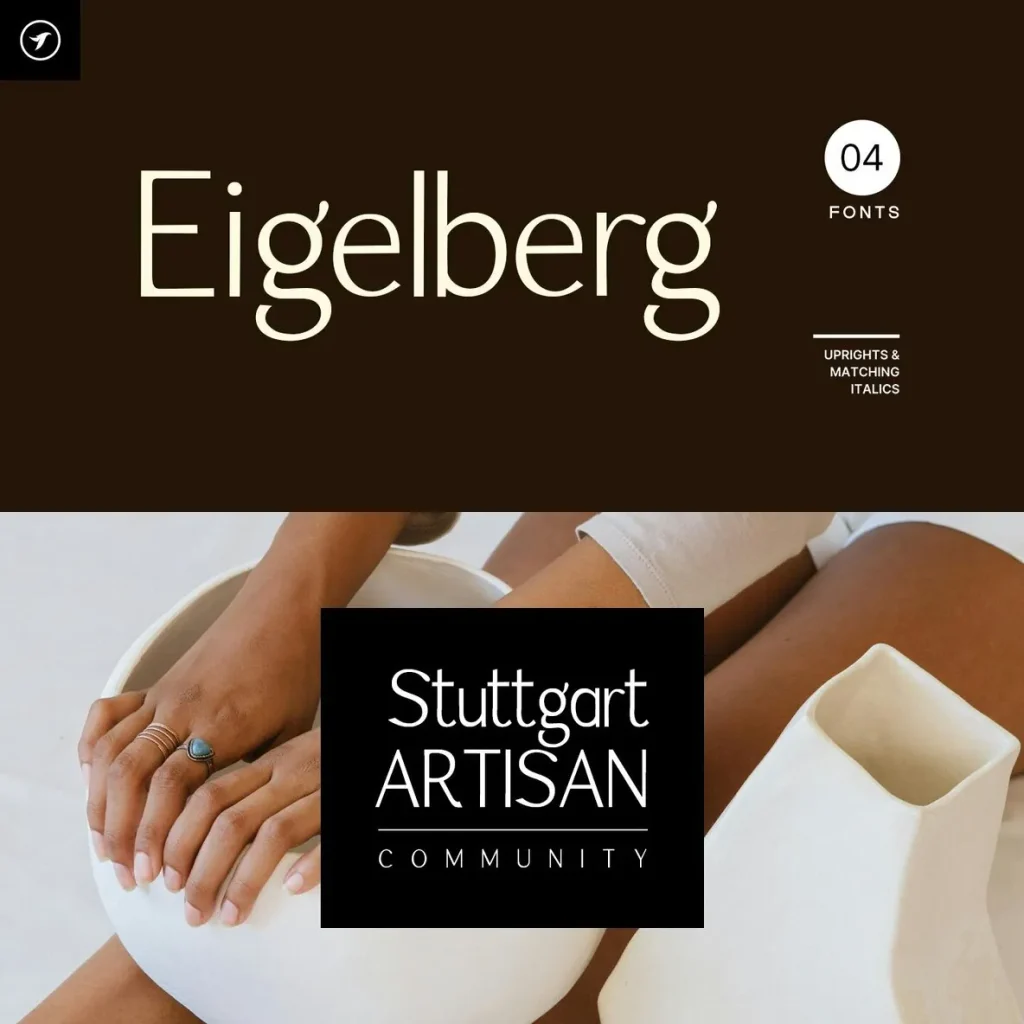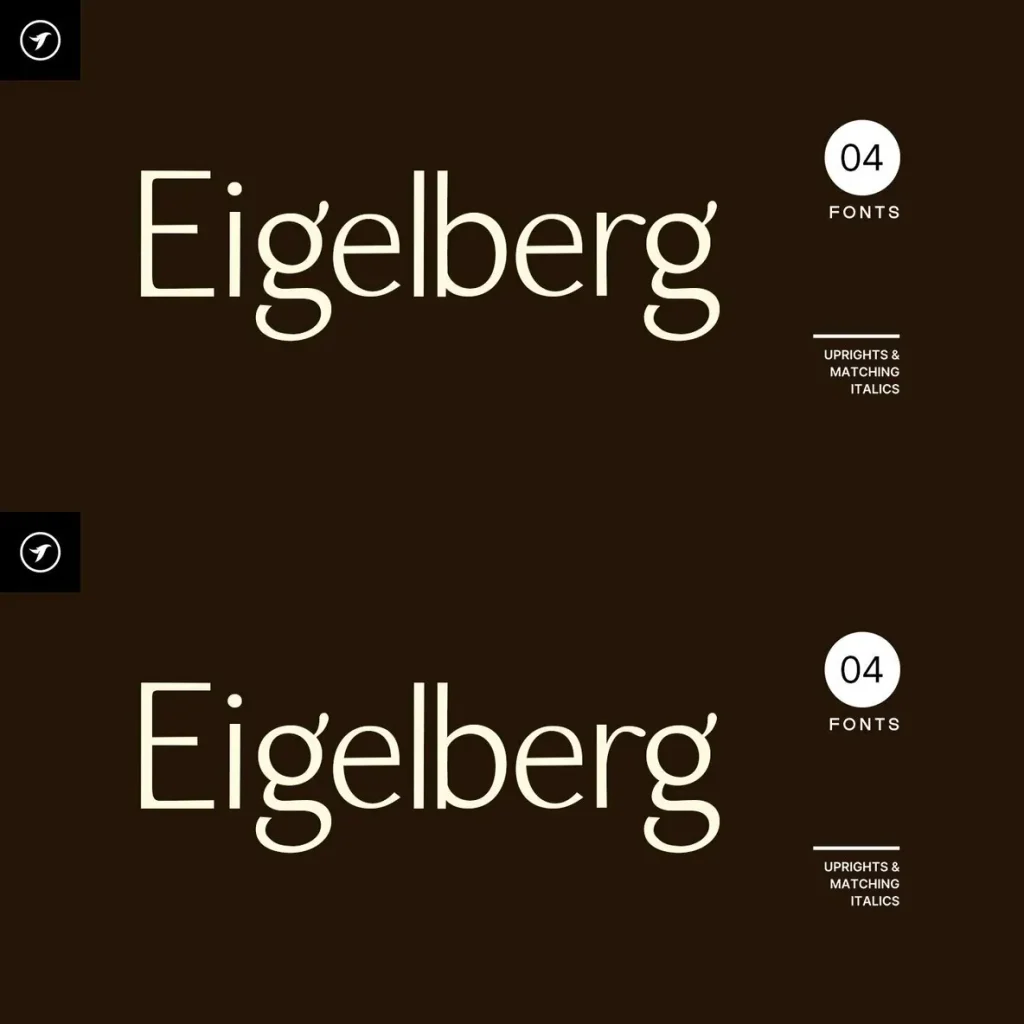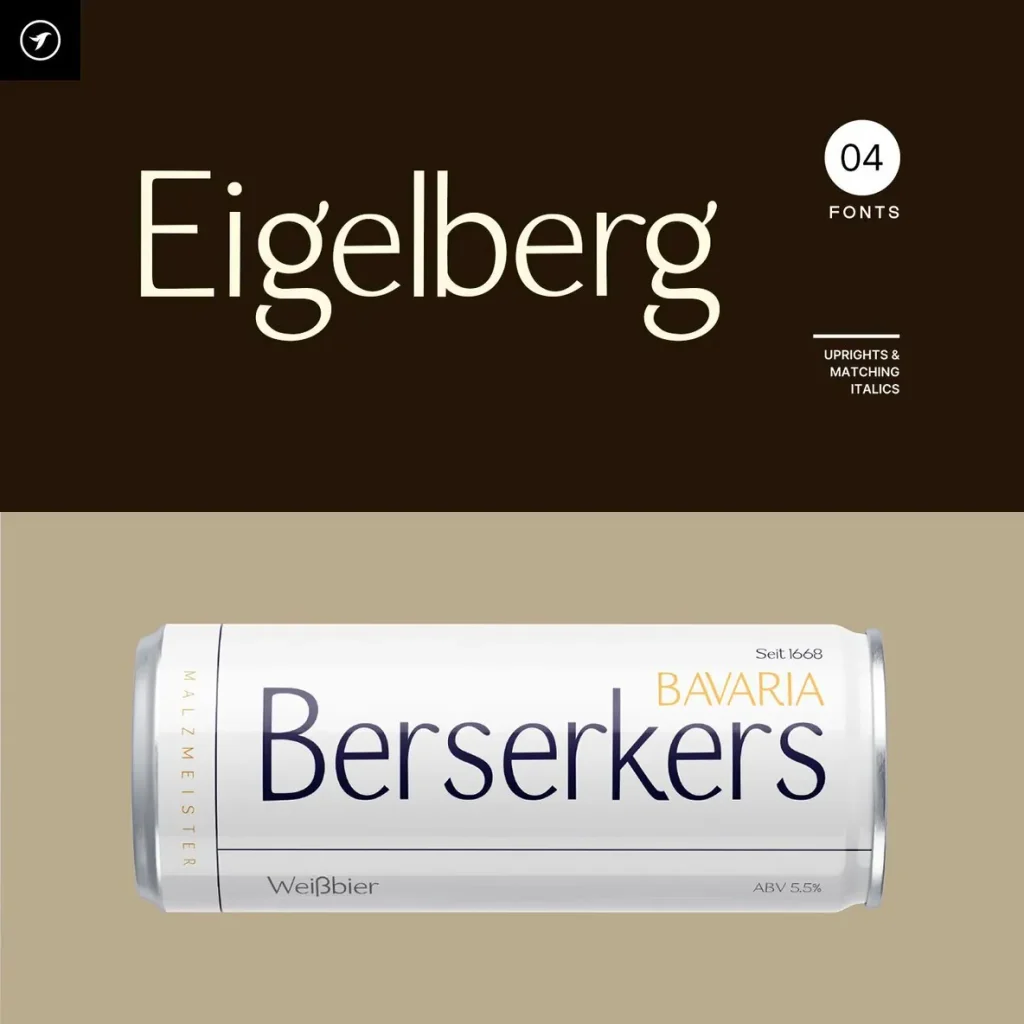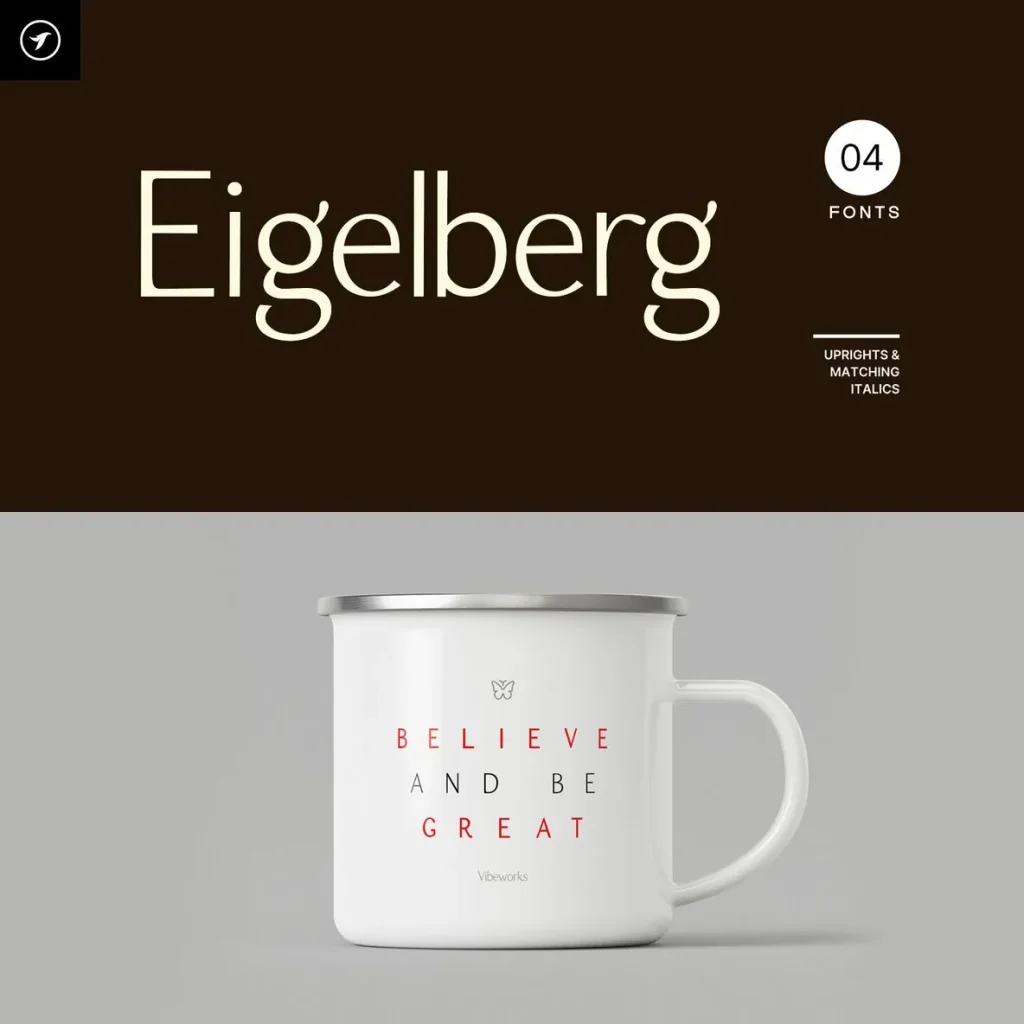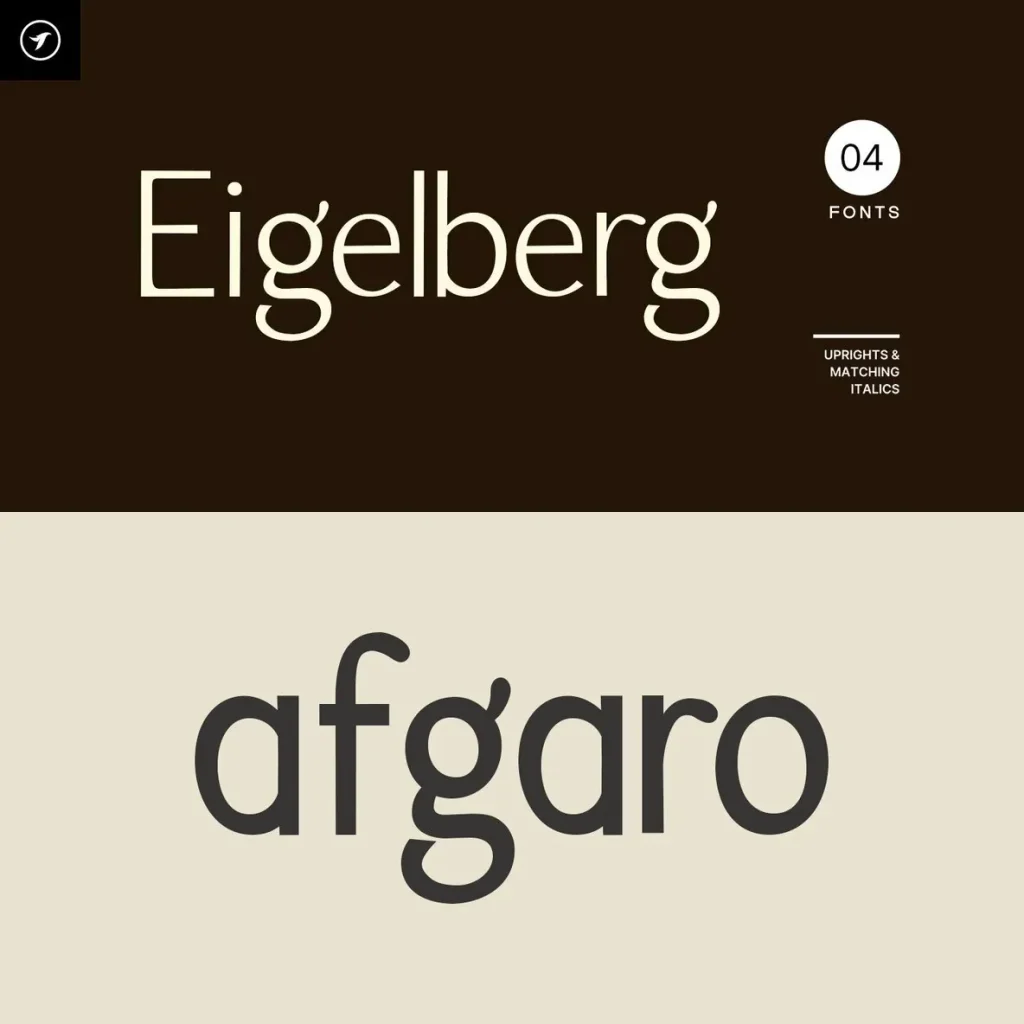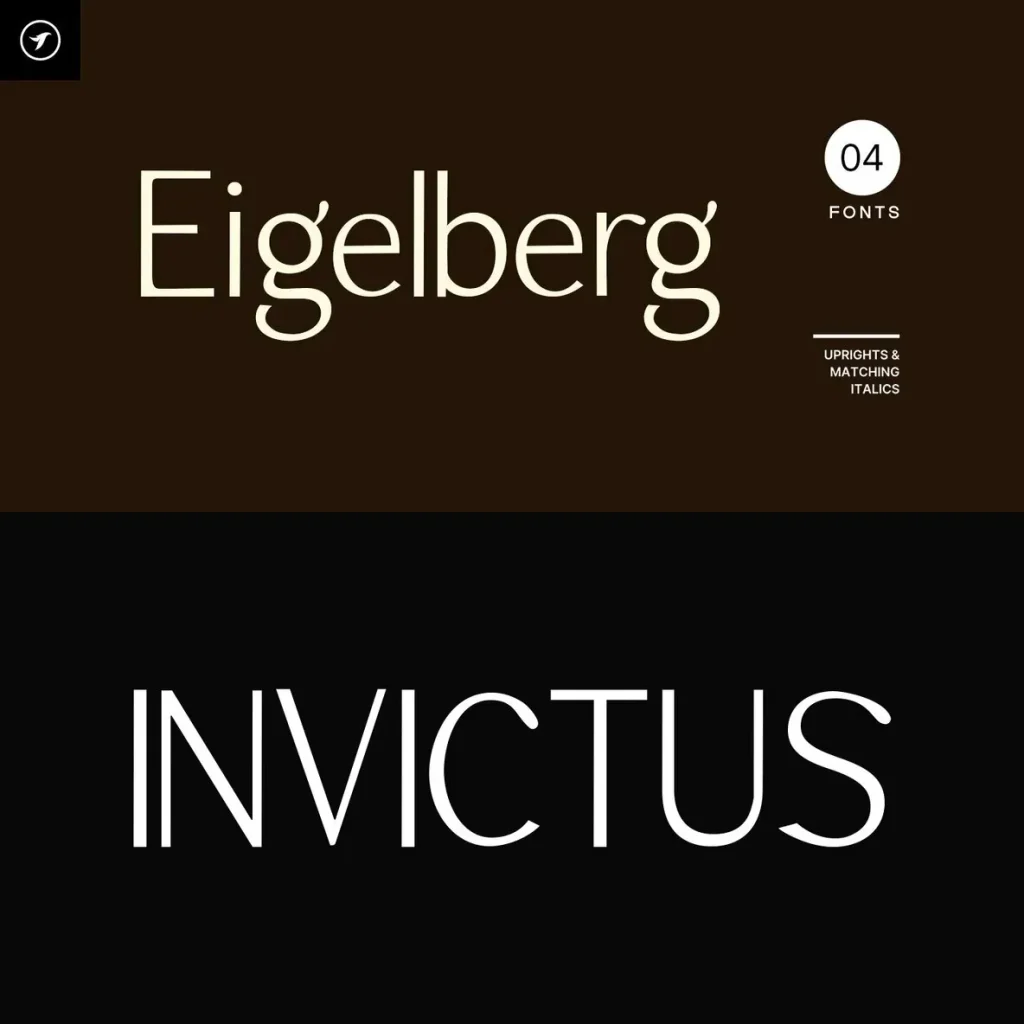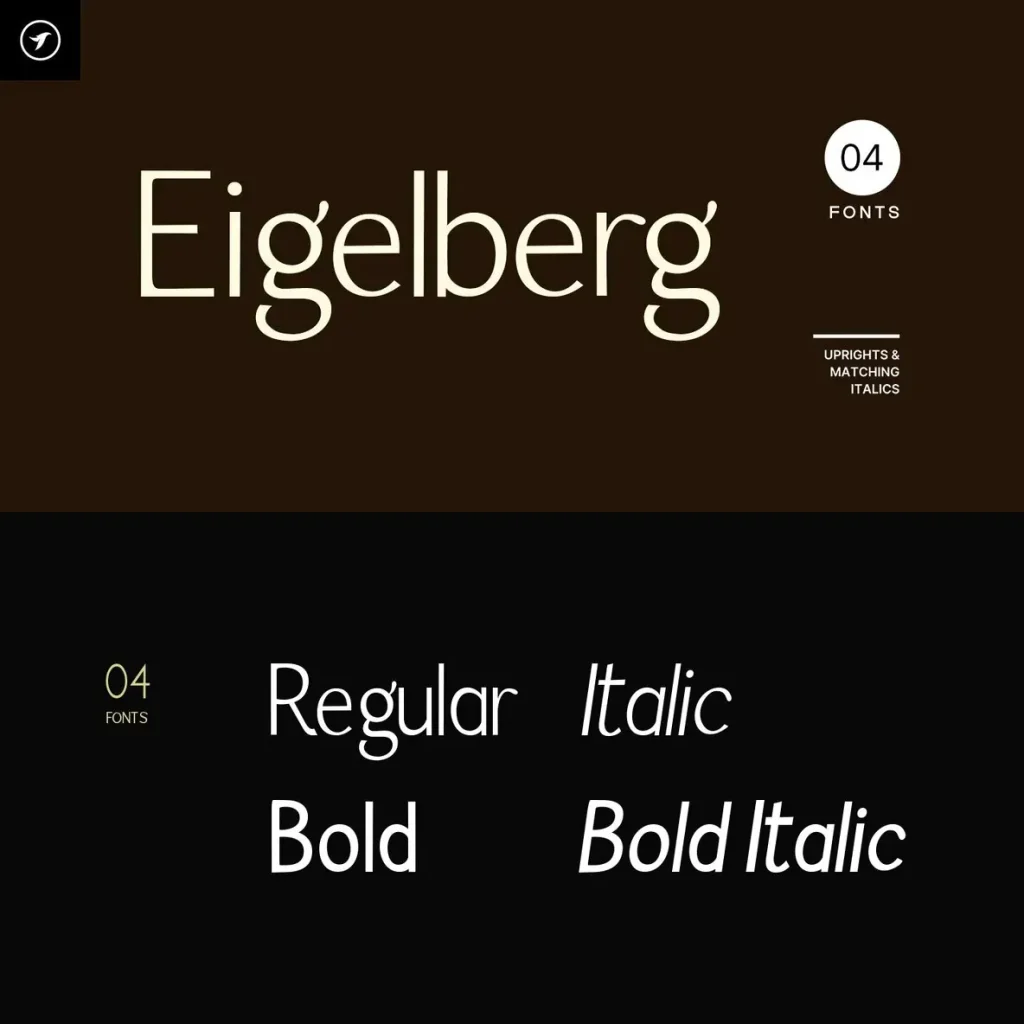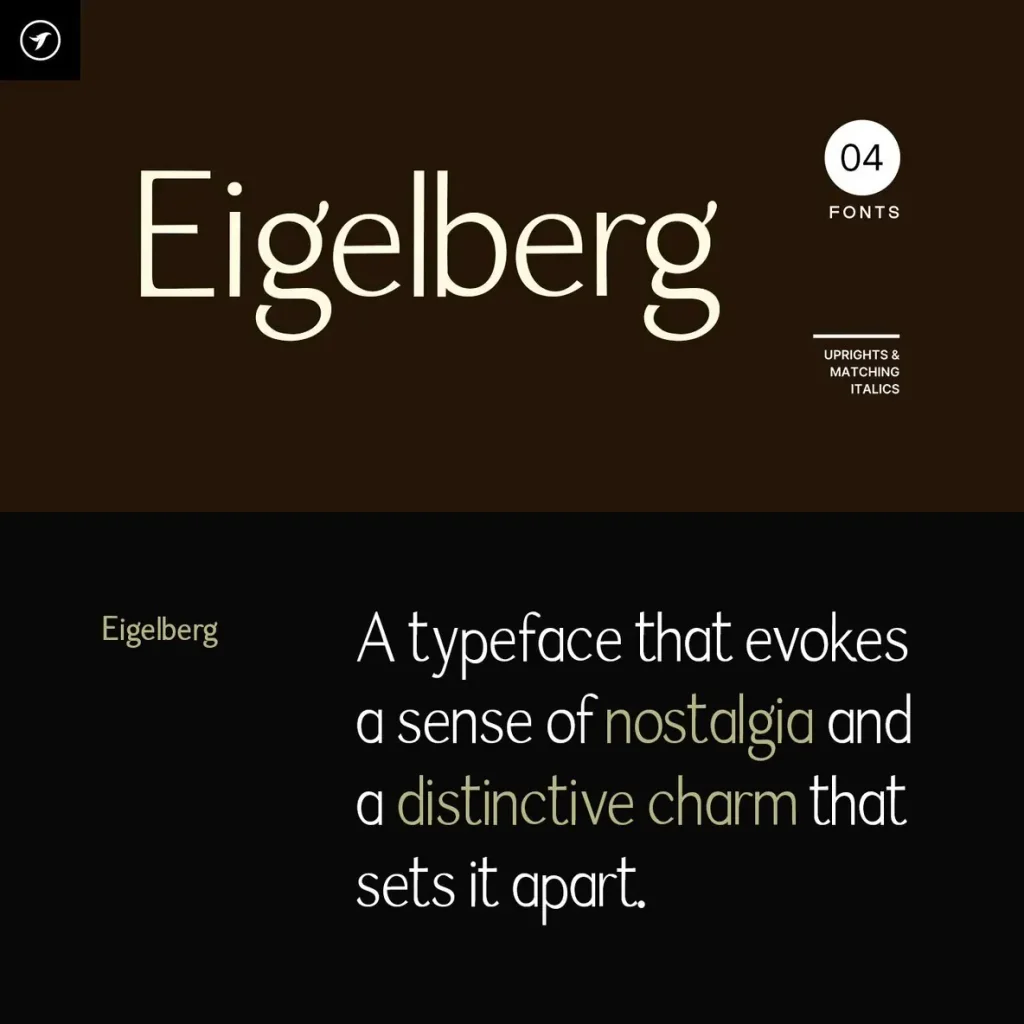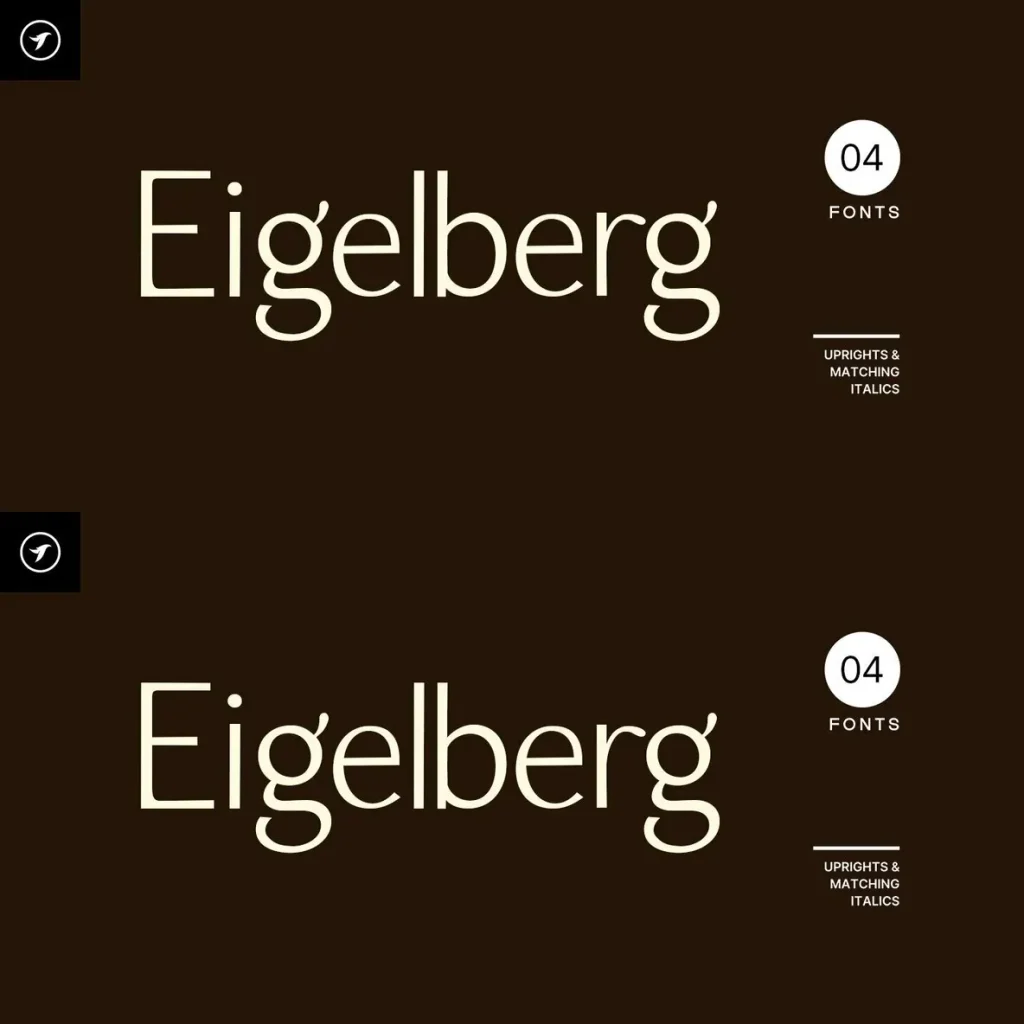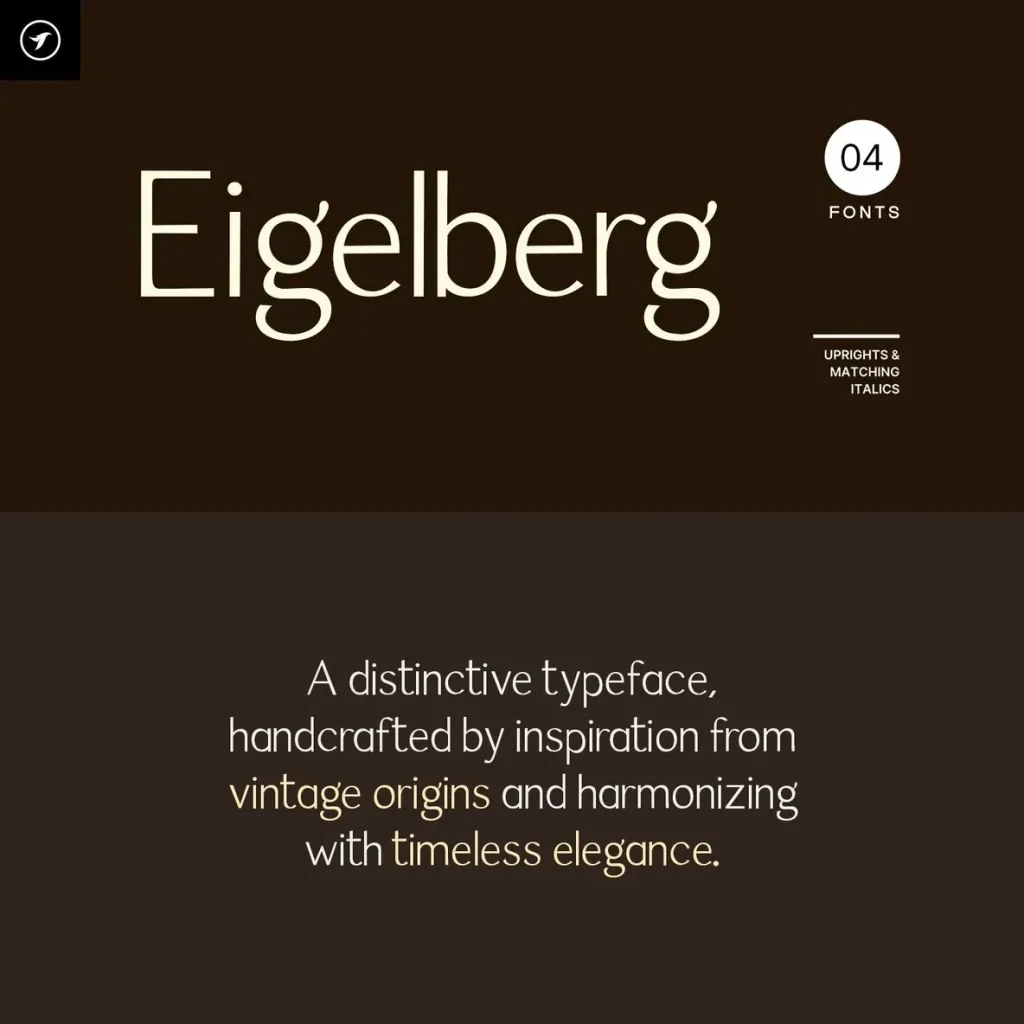
EIGELBERG — Character With Structure
EIGELBERG is a unique display typeface family that combines contemporary structure with distinctive character details. Its carefully designed forms create a memorable visual identity while preserving balance and readability, making it well suited to design work that needs presence without losing clarity.
Use EIGELBERG for branding, headlines, editorial design, packaging, and creative applications that call for a confident typographic style. The family brings a strong display voice to visual systems, giving designers a clear and recognizable font choice for projects where type must carry personality and control.